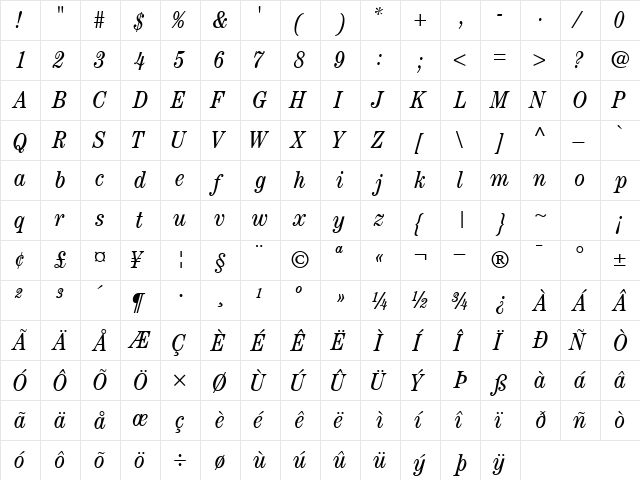
CenturyCondSSK Italic
Design Context for CenturyCondSSK Typeface
CenturyCondSSK offers clean, dependable letterforms without strong stylistic allegiance, making it a practical choice for designers who need flexibility. The slanted form adds forward momentum and visual energy. Its narrow stance lets it pack a punch even in space-constrained designs.
Pro Tip: Use CenturyCondSSK for emphasis, pull quotes, and subheadings where its slanted energy can add rhythm to the layout.